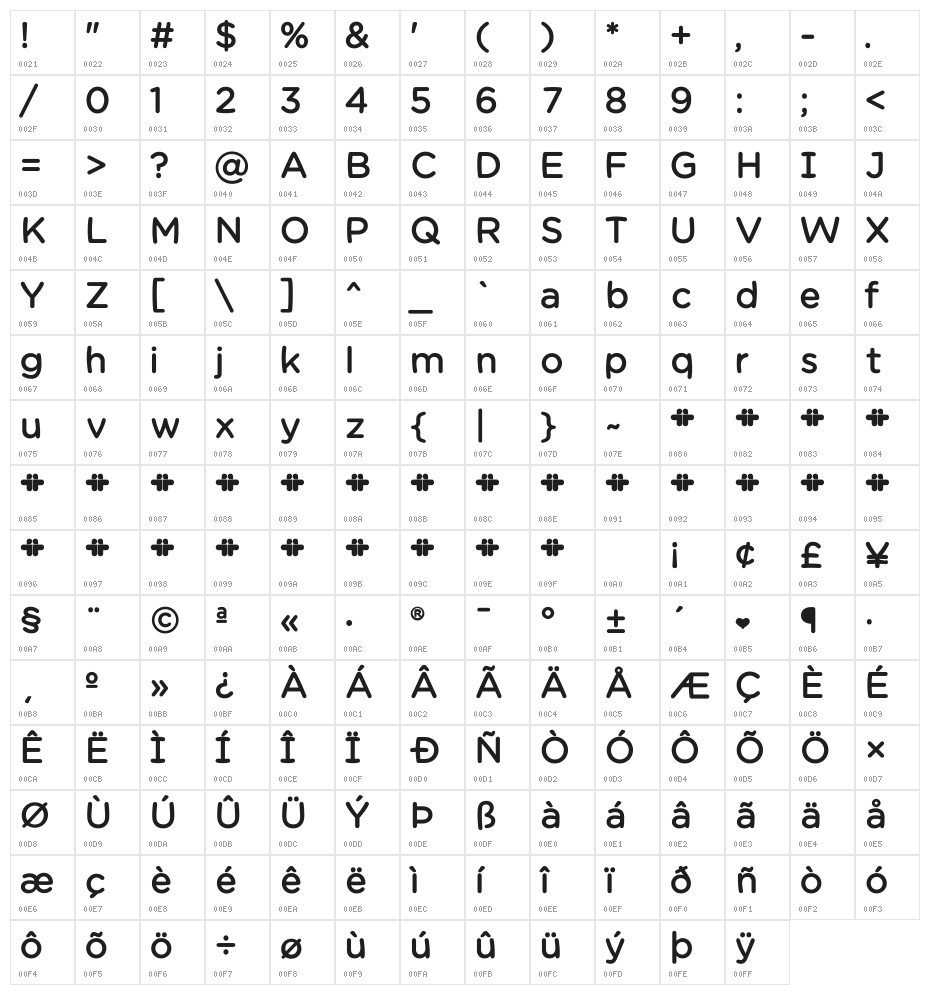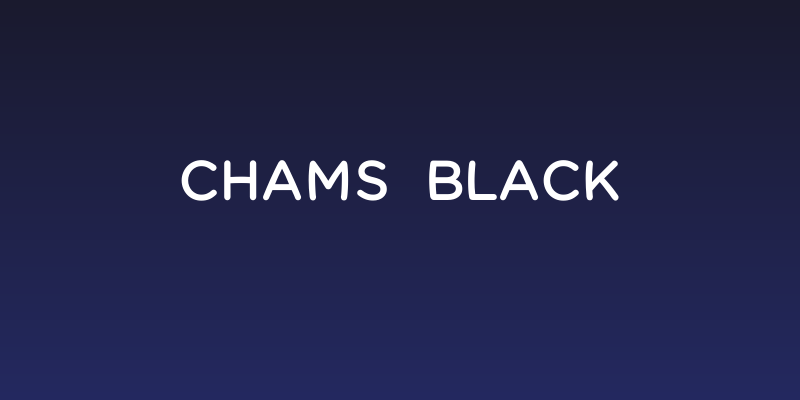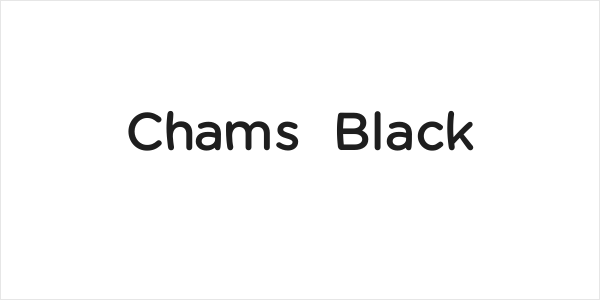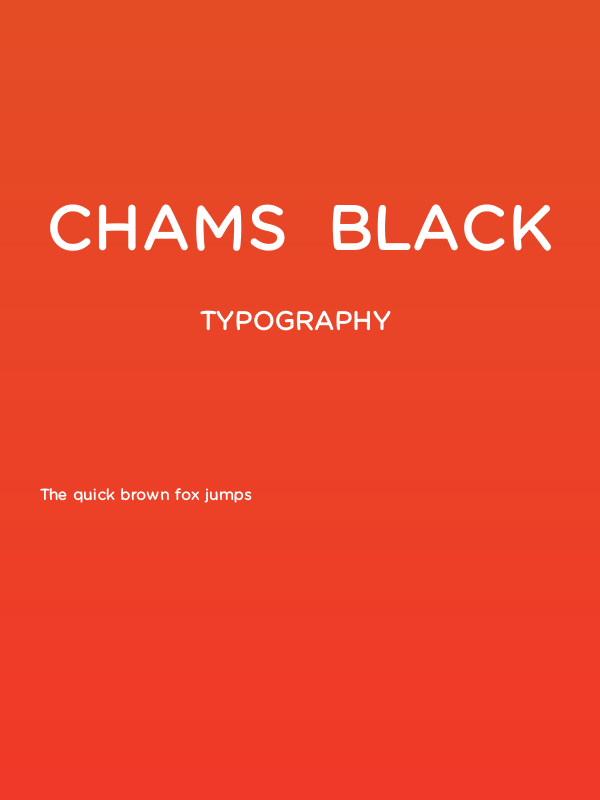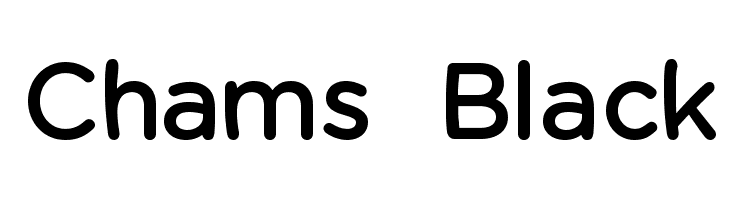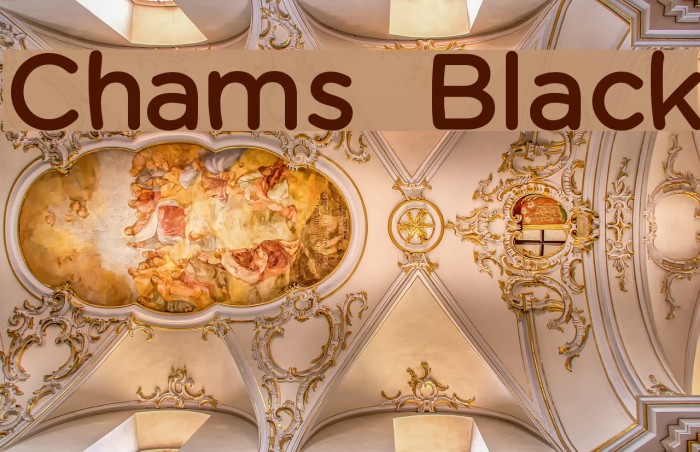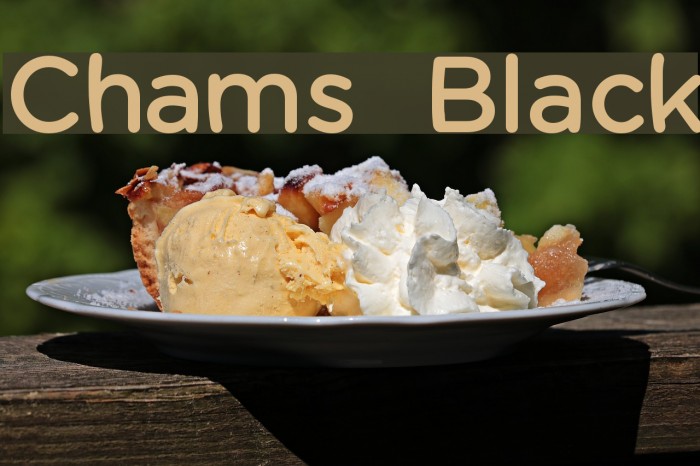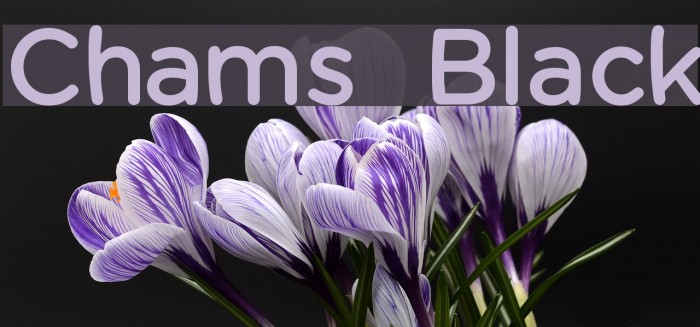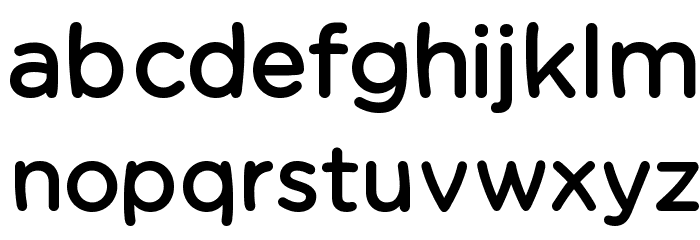
Chams Black Font
Chams Black Description
This font features a clean and rounded sans-serif style, characterized by its smooth curves and uniform stroke width. The letters are well-proportioned, offering a modern and approachable appearance. The rounded terminals and consistent line thickness give it a friendly and inviting look, making it suitable for a wide range of applications. The numerals and special characters maintain the same rounded aesthetic, ensuring visual harmony across all elements. Its simplicity and clarity make it highly legible, even at smaller sizes, while the rounded edges add a touch of warmth and personality.
| Proposed Projects | Ideal for branding, user interfaces, children's books, and educational materials. |